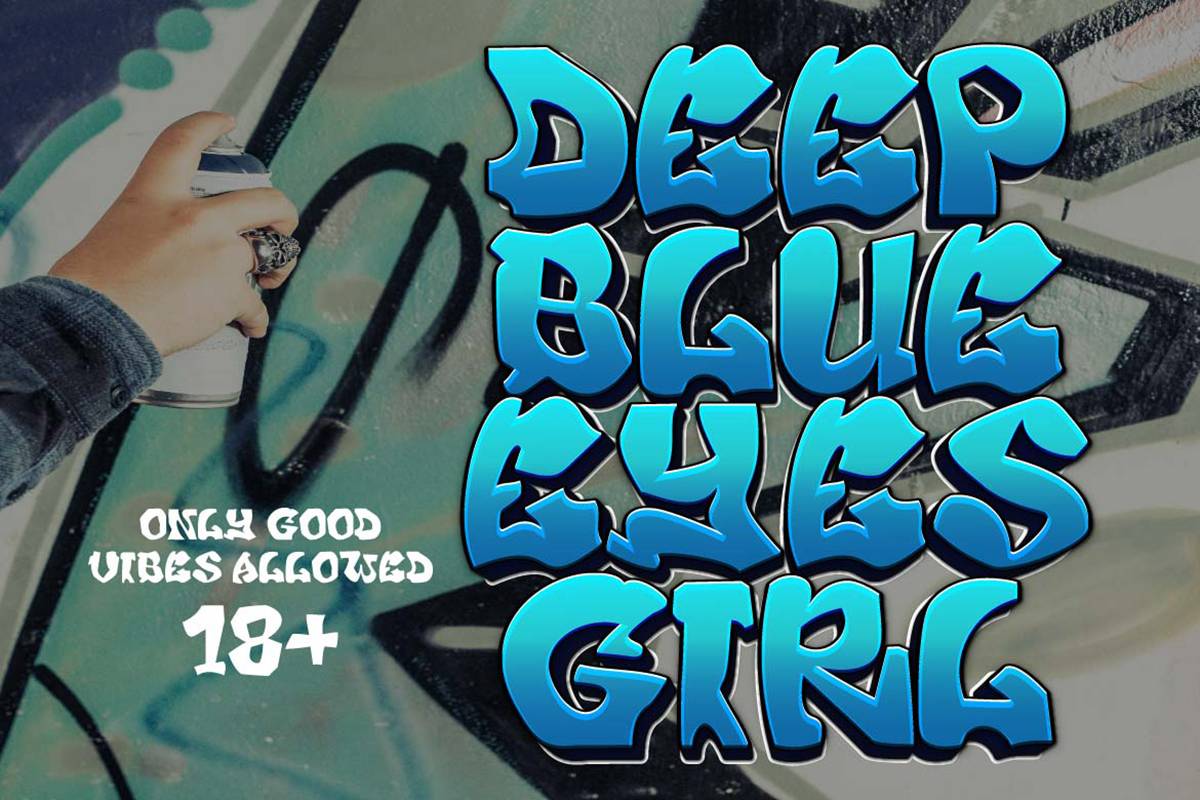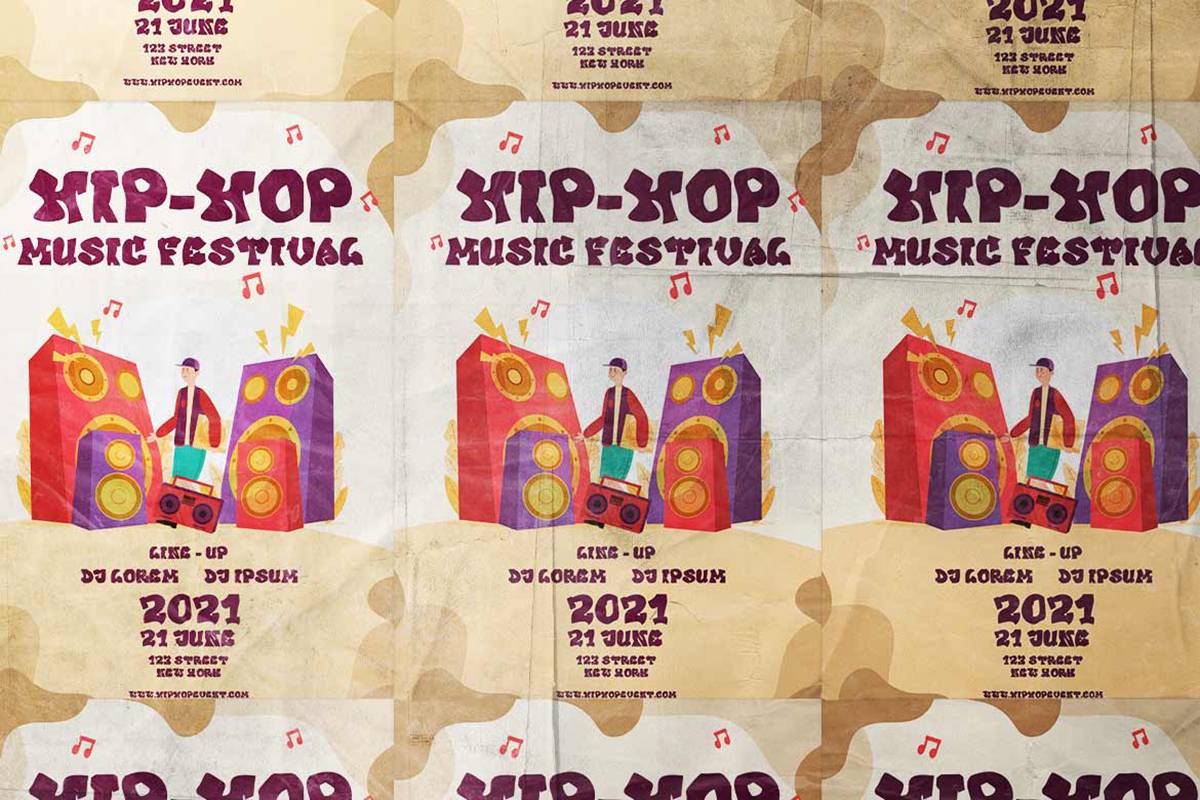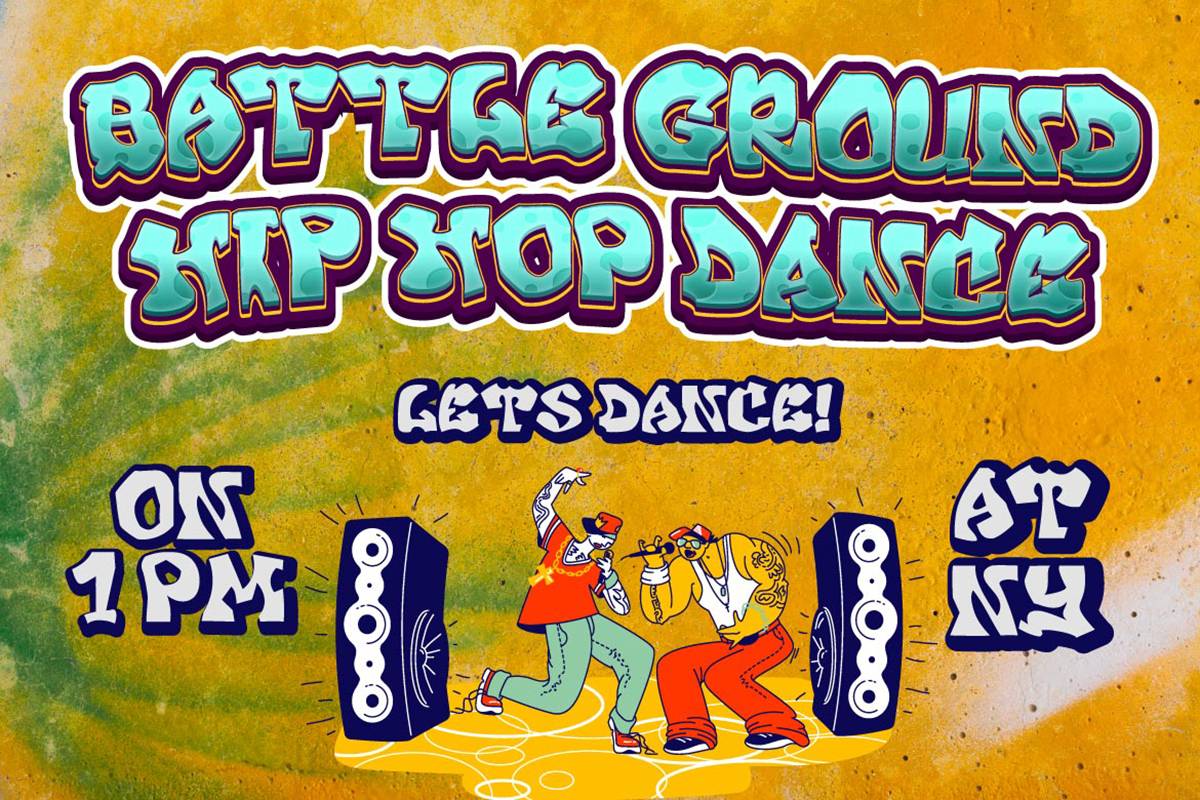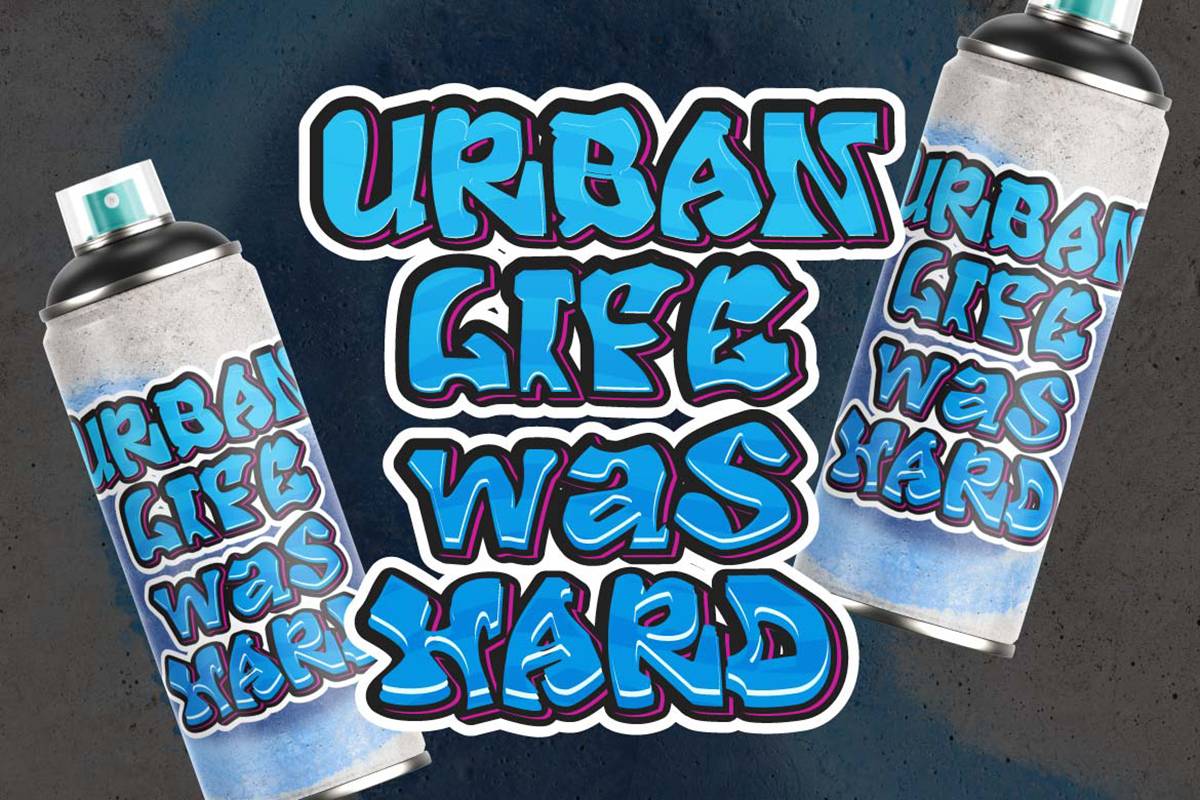
Anti Gravity is a bold, decorative serif font with a playful yet slightly gothic vibe, featuring sharp, irregular serifs and exaggerated, quirky shapes that give it a strong personality. Its uneven strokes and lively letterforms make it ideal for eye-catching headlines, posters, and creative branding where a unique, dynamic style is desired. This font works best when you want to convey energy and individuality, perfect for projects looking to stand out with a distinctive, artistic flair.
Anti Gravity Font
About Anti Gravity Font